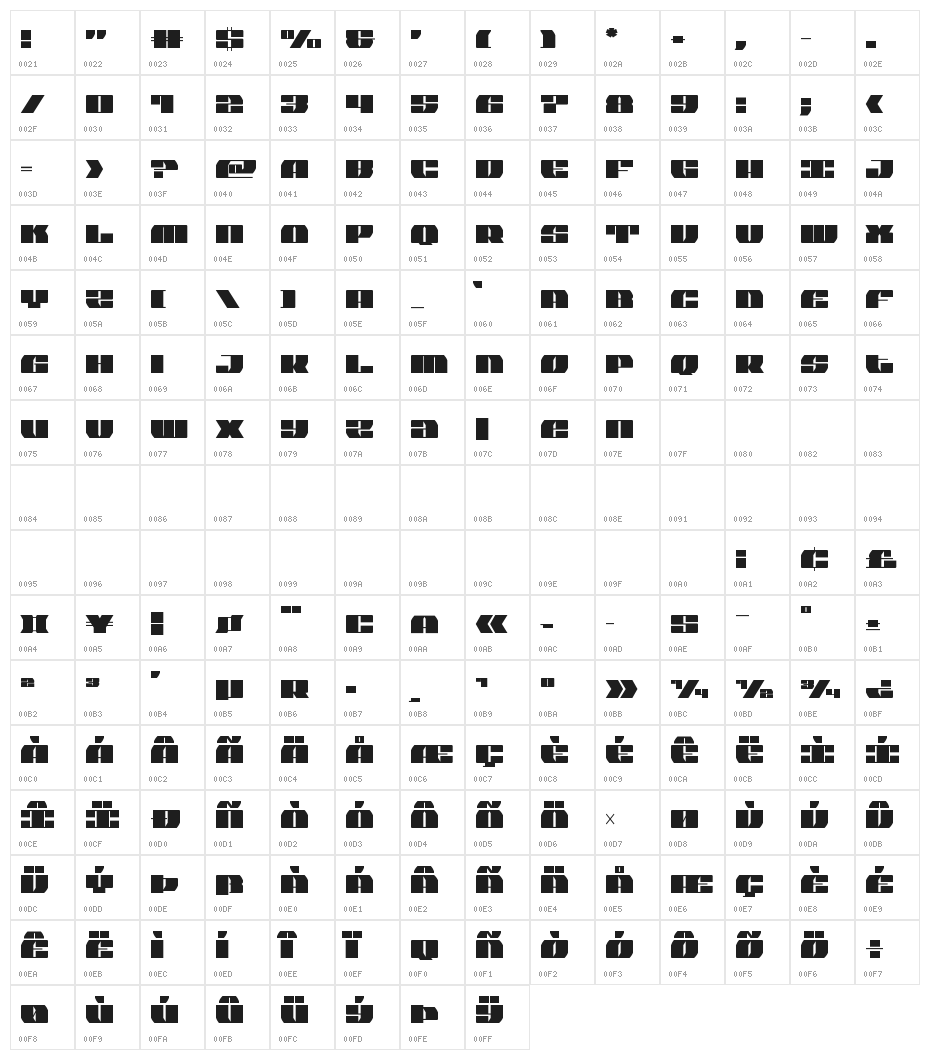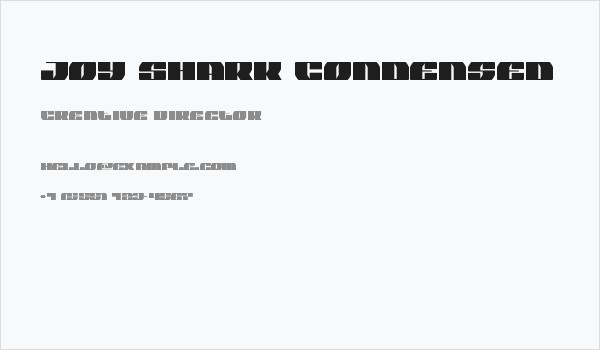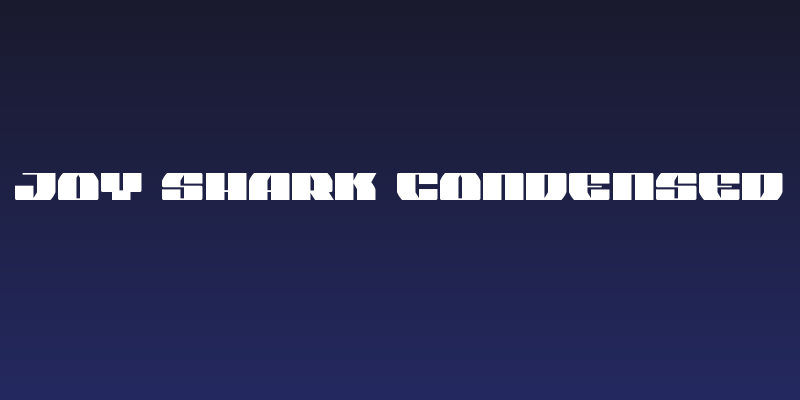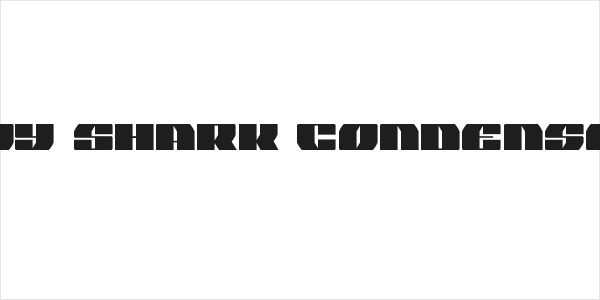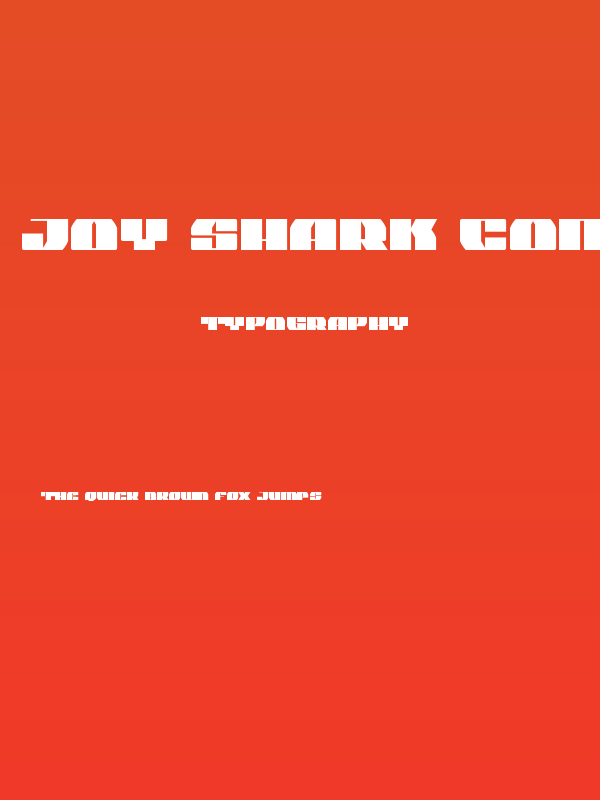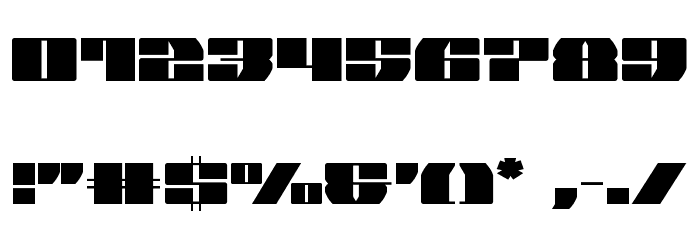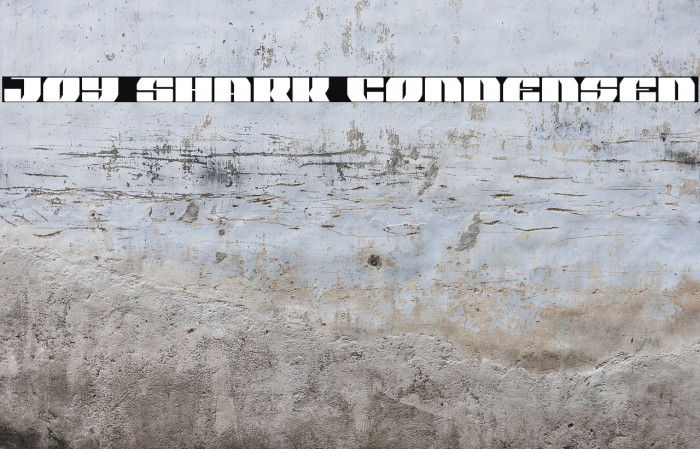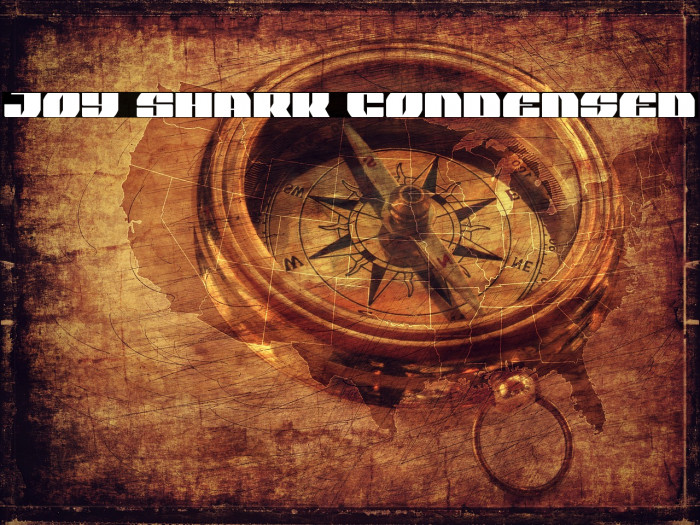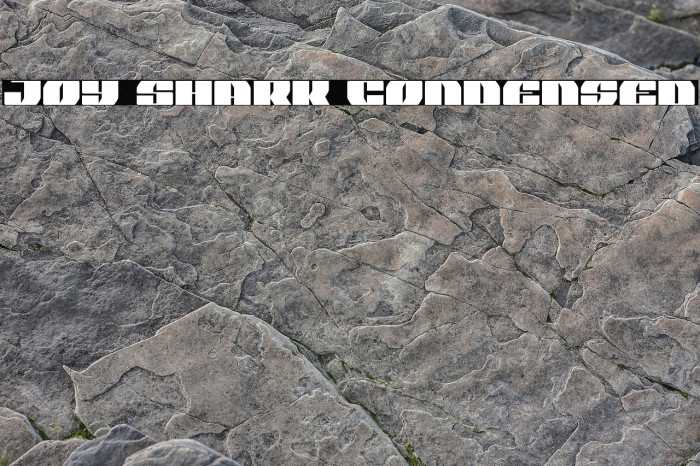
Joy Shark Condensed Font
Joy Shark Condensed Description
This font features a bold and condensed style with a distinctly modern and geometric appearance. The characters are blocky and angular, with sharp edges and a uniform thickness throughout. The uppercase and lowercase letters maintain a consistent height, contributing to its compact and dense look. The numerals and special characters follow the same design principles, ensuring a cohesive visual identity. This font's unique aesthetic makes it stand out, ideal for projects that require a strong and impactful presence.
| Proposed Projects | Ideal for branding, posters, headlines, and any design that requires a bold statement. |